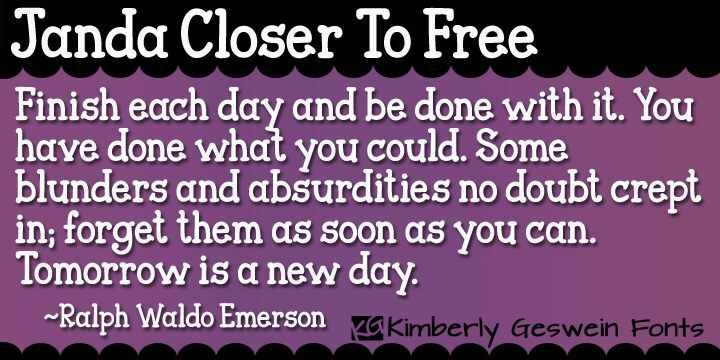
Janda Closer To Free by Kimberly Geswein is a free comic display font with broad, irregular letters and a cheerful hand-drawn profile. Rounded slab serifs and soft, swollen stroke endings keep the forms lively rather than rigid. The changing widths and gently uneven alignment give each letter its own comic timing.
A children's snack brand or casual cafe could use it across packaging, menus, and mascot graphics because the letters already feel illustrated. Its clearest audience is children, families, and casual diners.
There is a bonus double-storey a on the | key and a flower on the key.